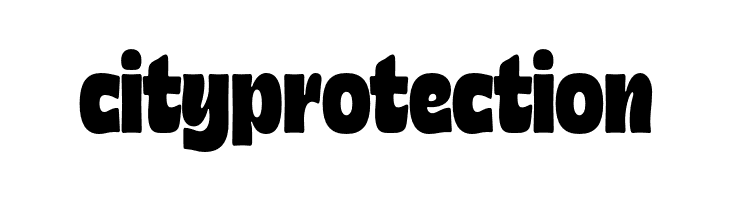
Bamboy Trial Regular Font
Font by Eko Bimantara
A bold, playful font with chunky, rounded characters.
Bamboy Trial Expanded Font
Font by Eko Bimantara
A bold, playful font with exaggerated curves and thick strokes.
Bamboy Trial Condensed Font
Font by Eko Bimantara
A bold, condensed font with a playful and strong design.